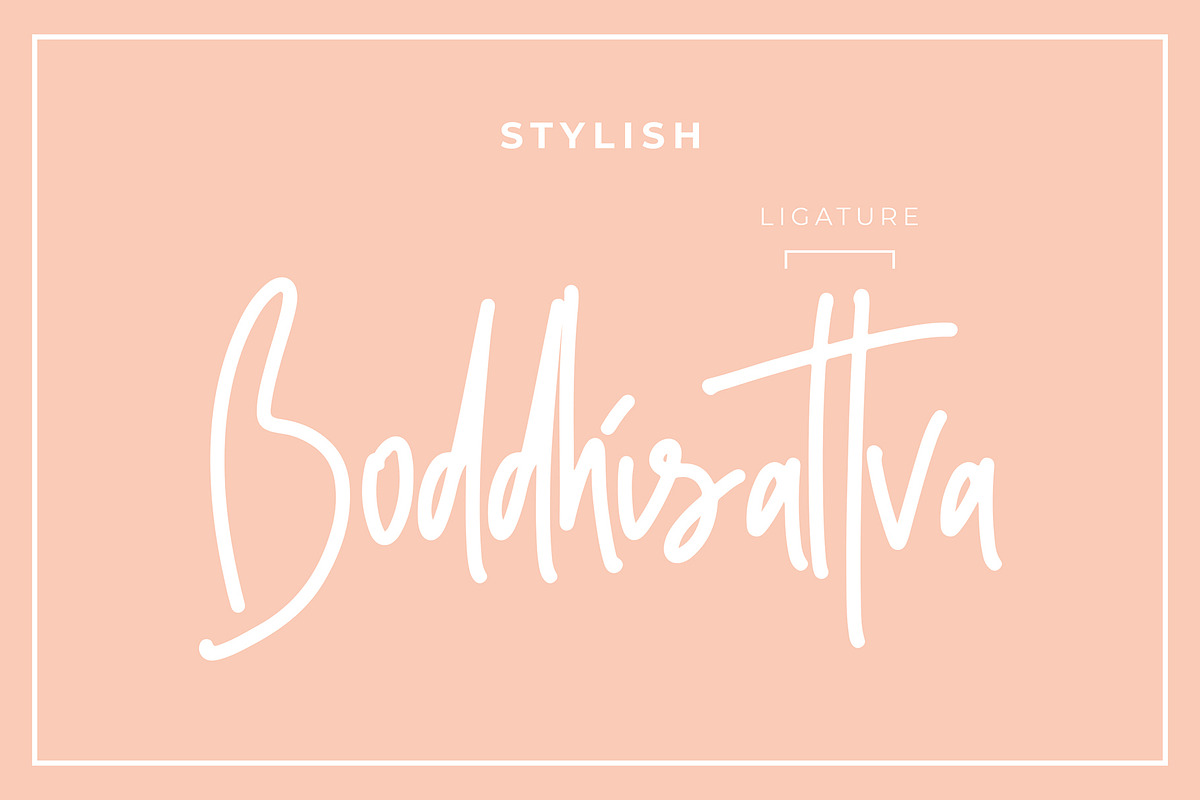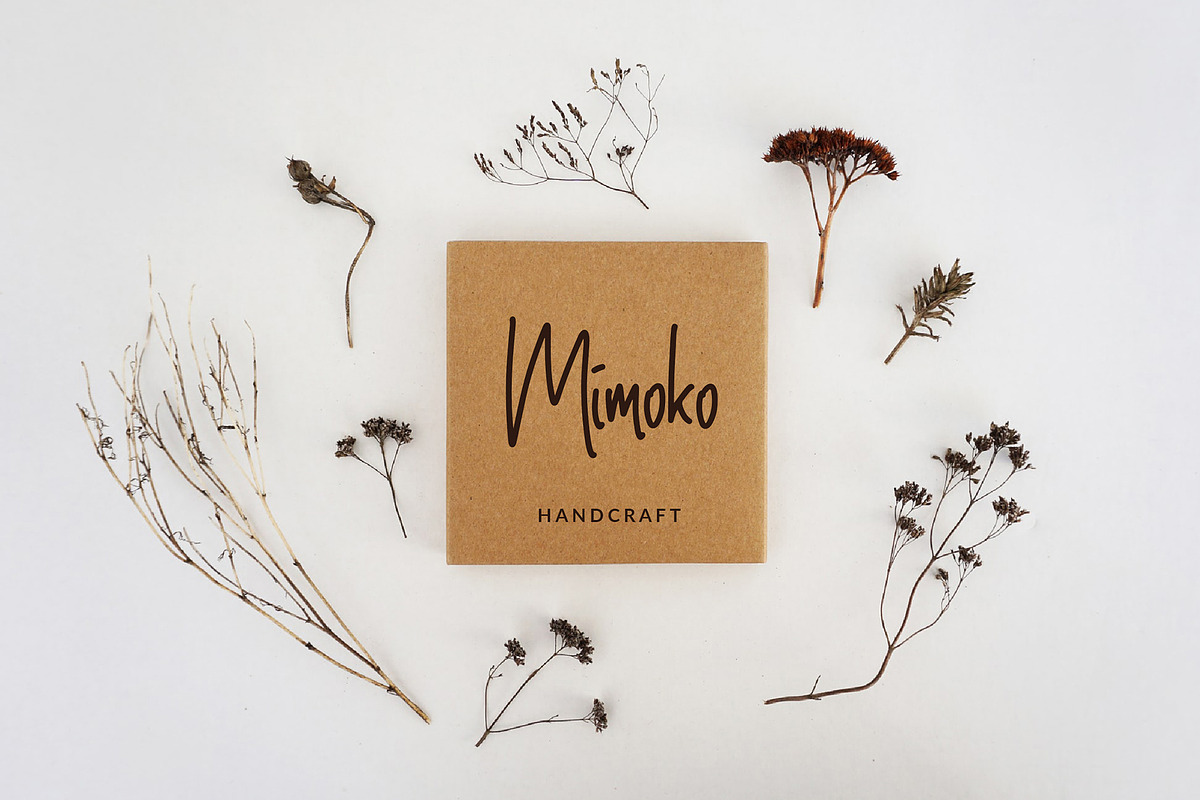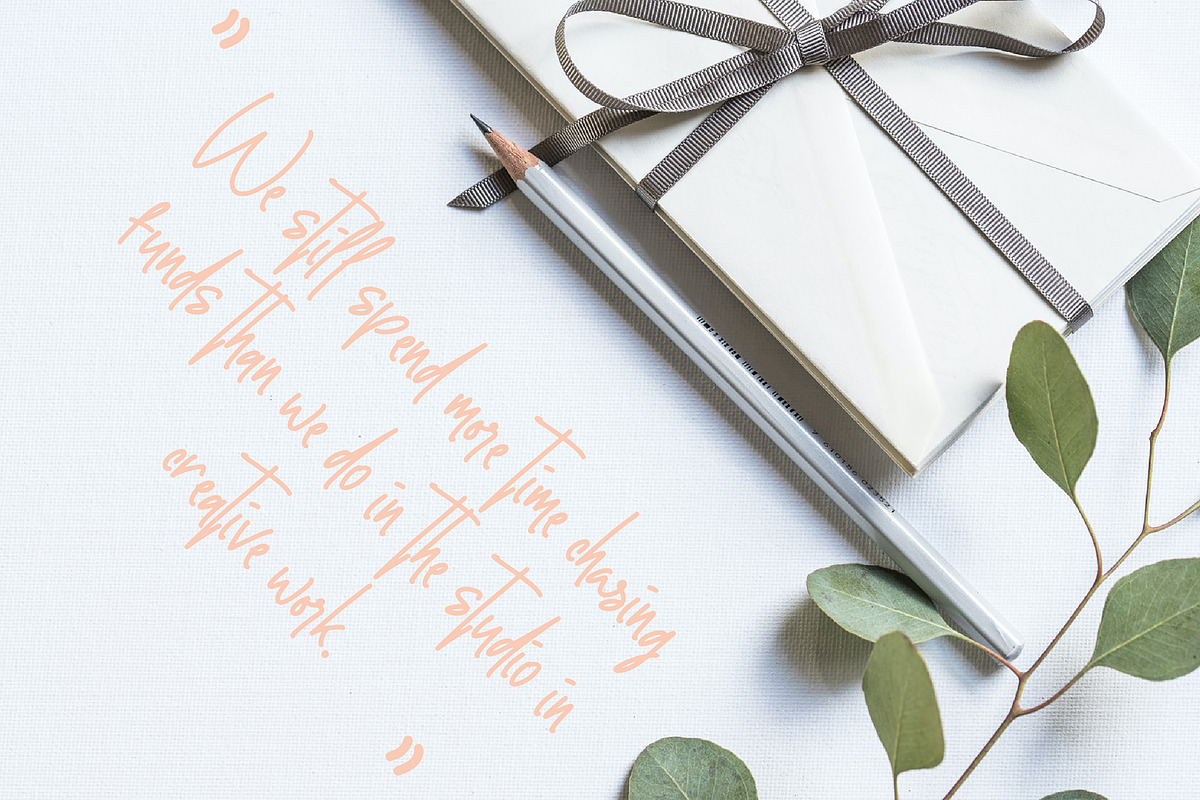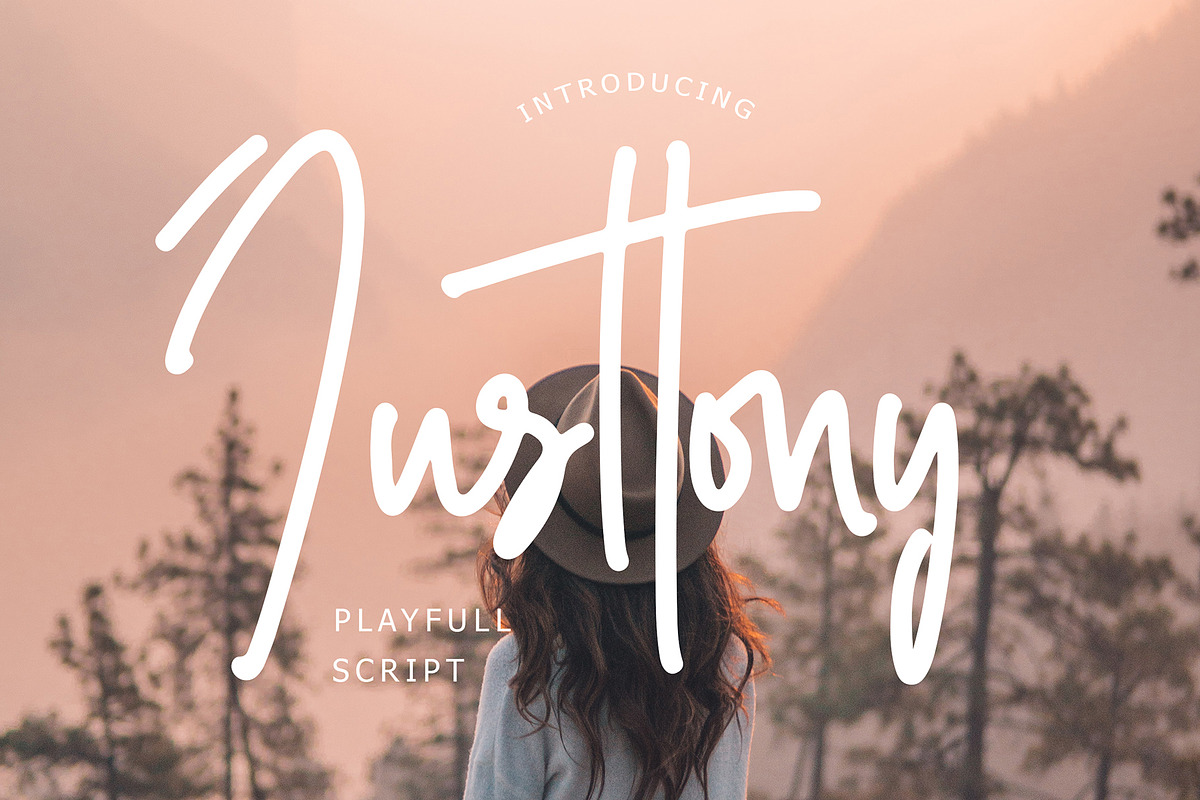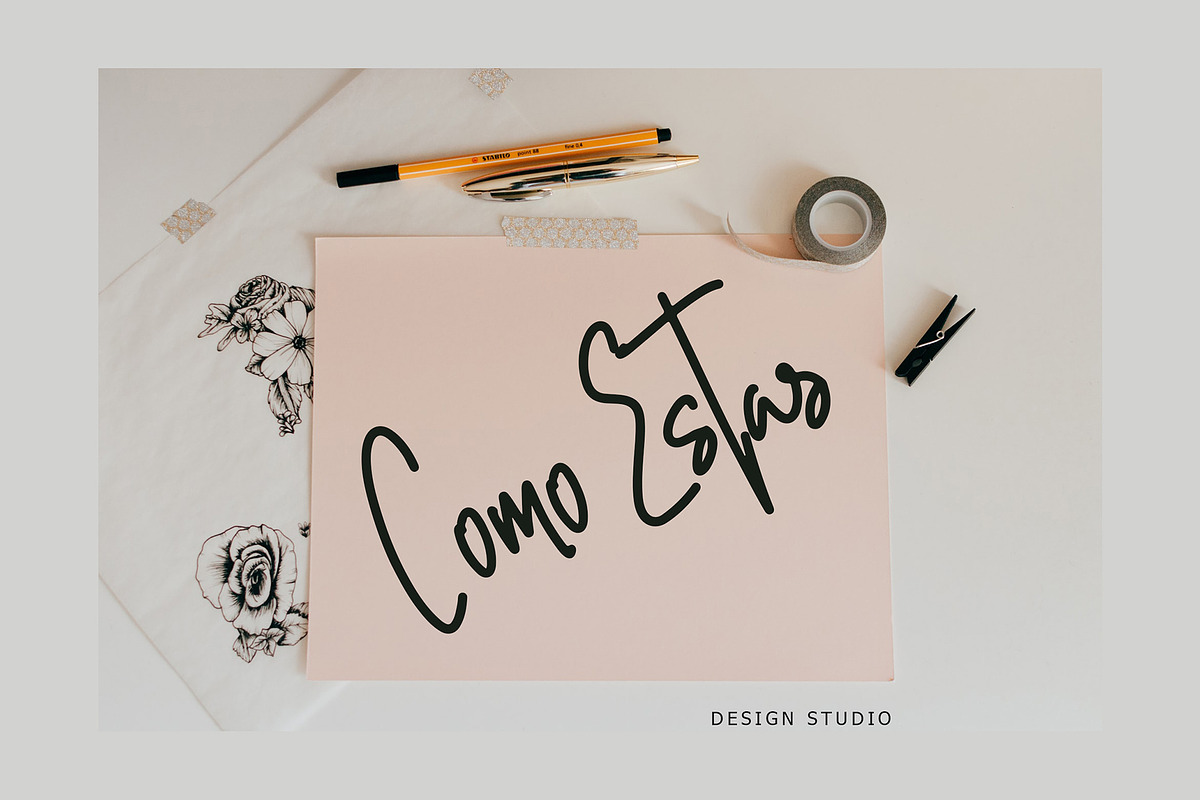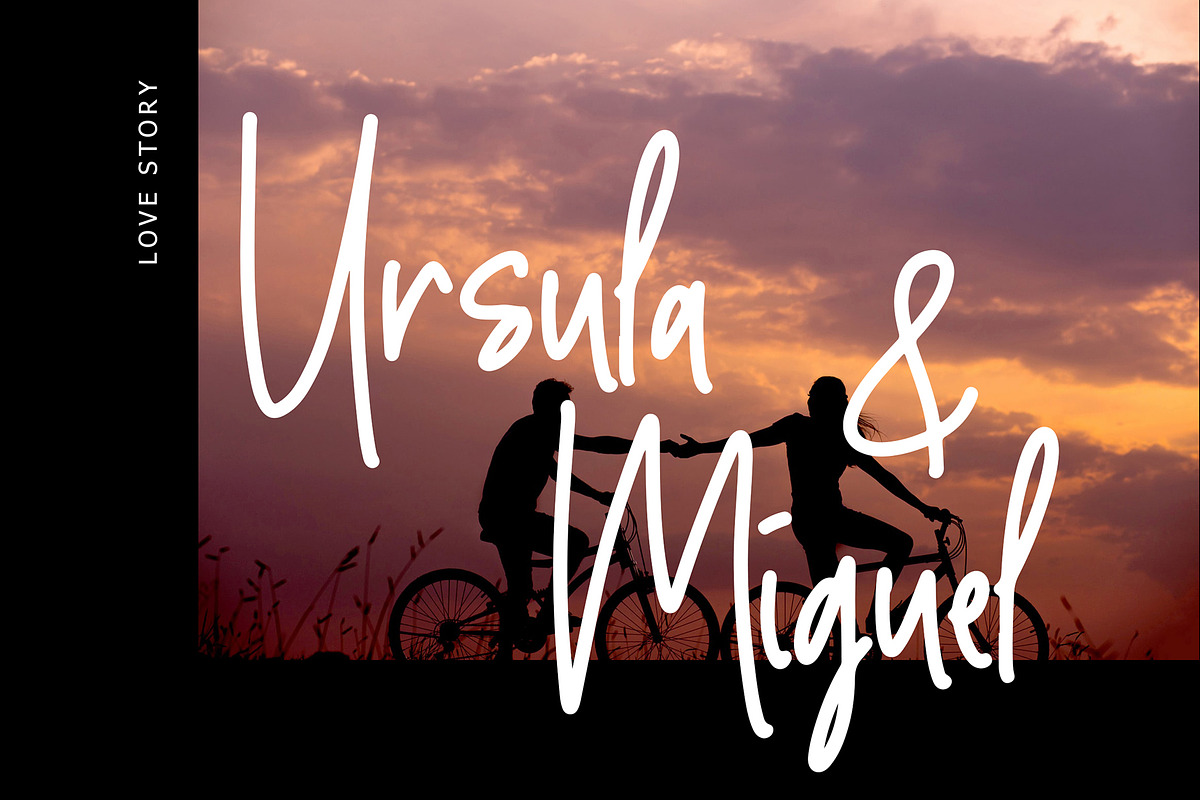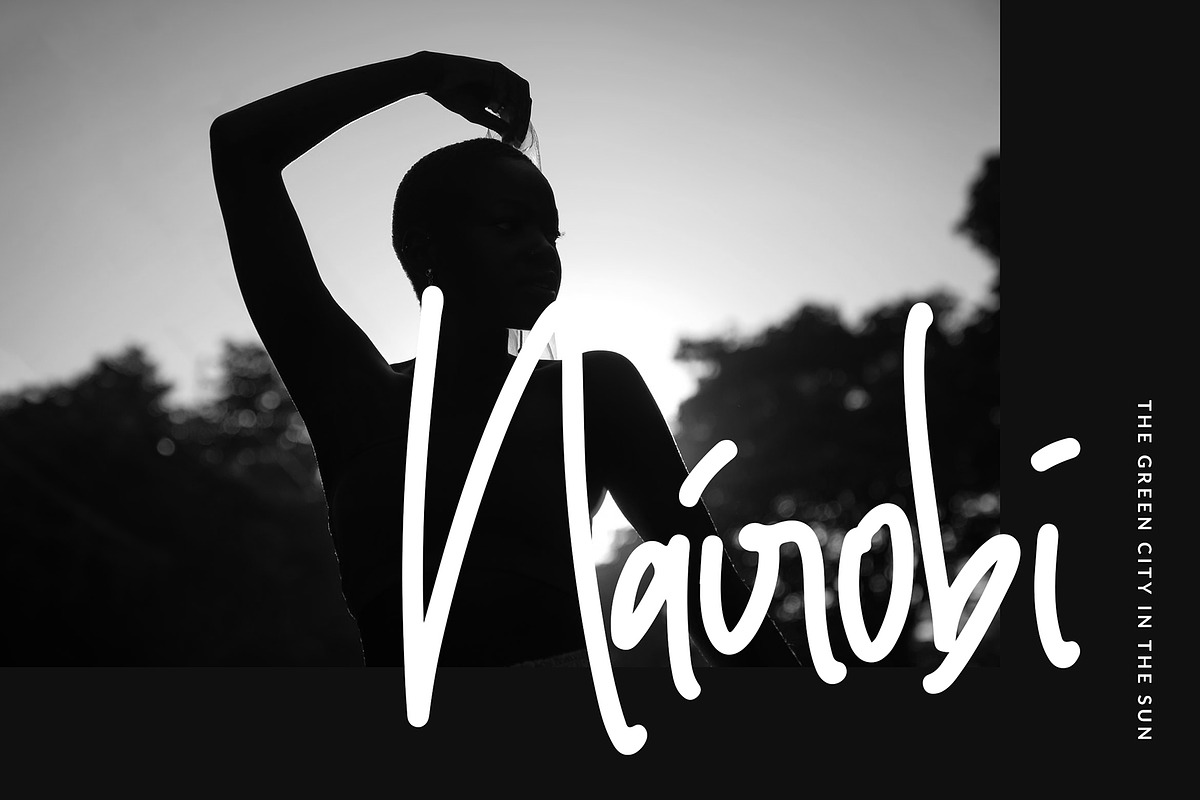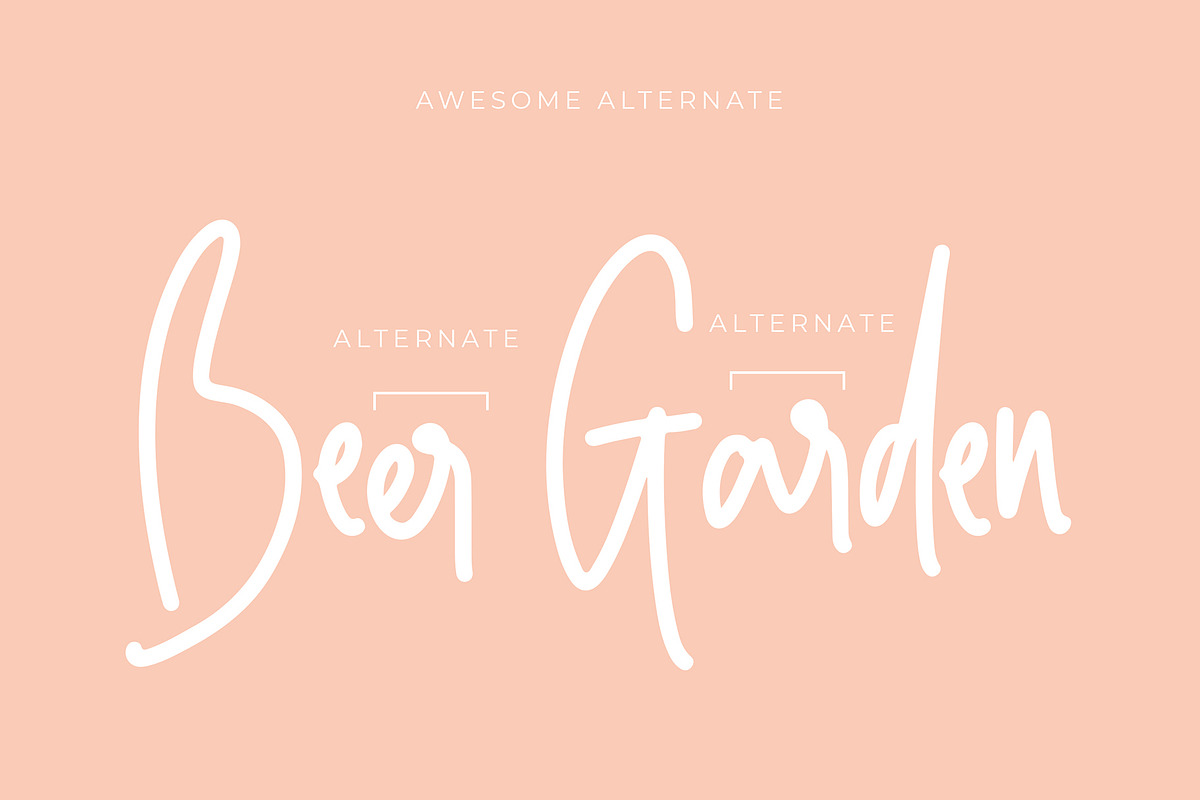
Justtony Playful Script Font
Justtony Playful Script Font is a modern look of Script font, can make your text appear elegant, luxurious, and modern!
Justtony is perfect for branding projects, logo, wedding designs, social media posts, advertisements, product packaging, T-shirt design, product designs, label, photography, watermark, invitation, stationery, and any projects.
Why Justtony Playful Script Font is worth a look
Justtony Playful Script Font by Giant Design fits naturally into Branding, posters, packaging, typography.